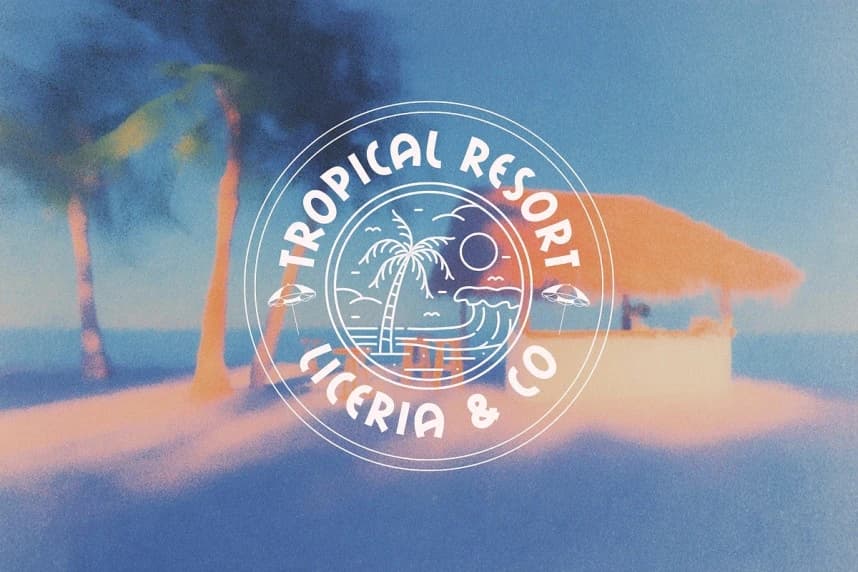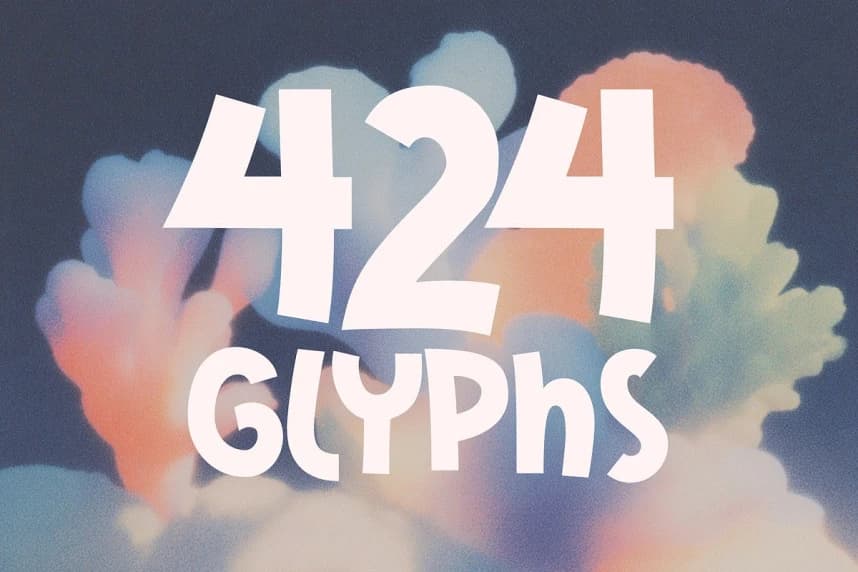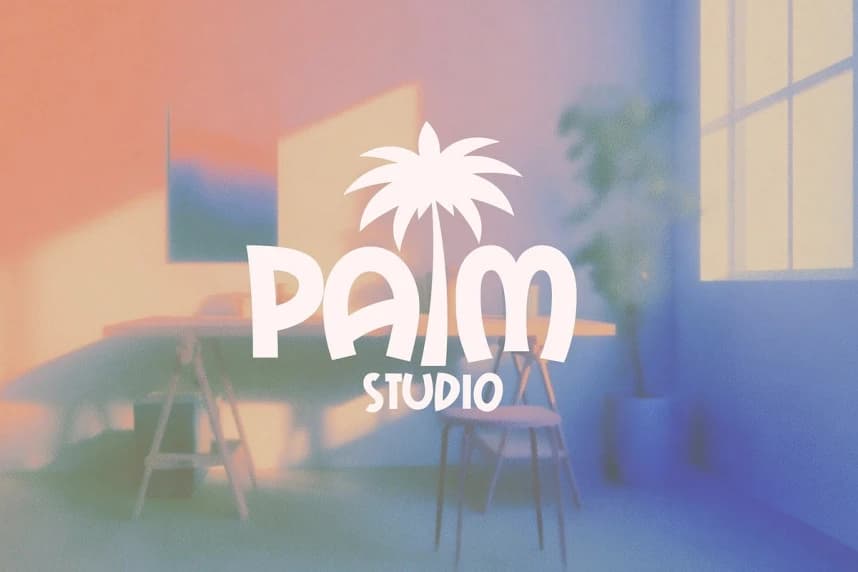
Tropical Wink Font
Tropical Wink Font, a bold and playful sans serif typeface that radiates fun. With its thick, quirky letters and cheerful personality, this font is perfect for capturing the carefree spirit of summer. Whether you’re designing whimsical posters